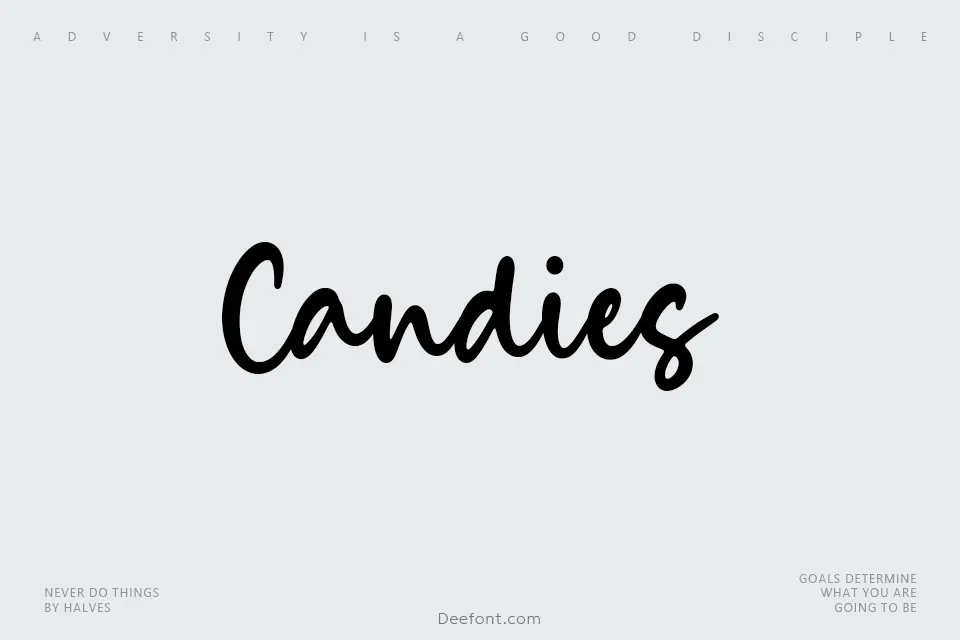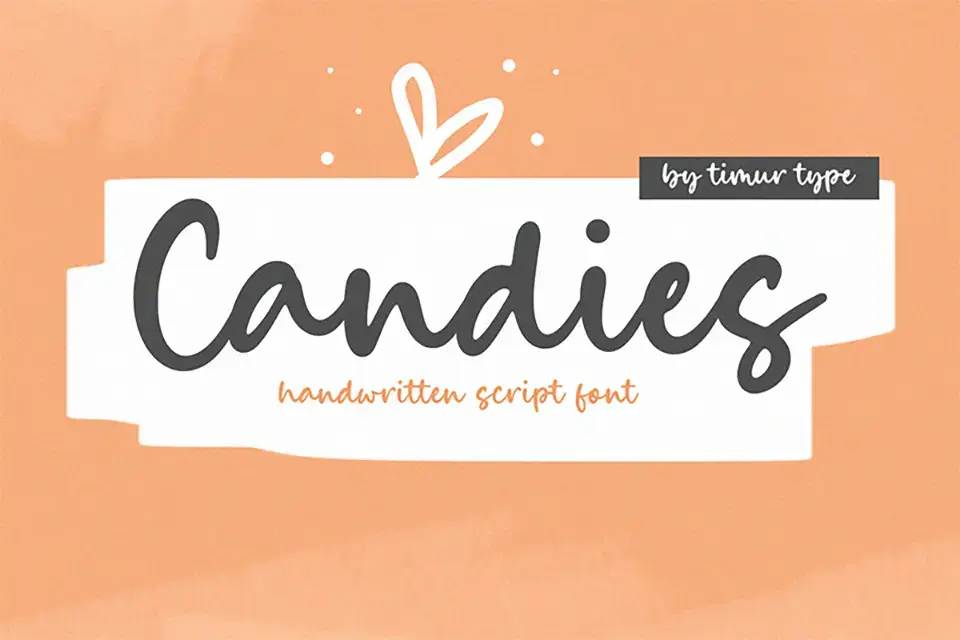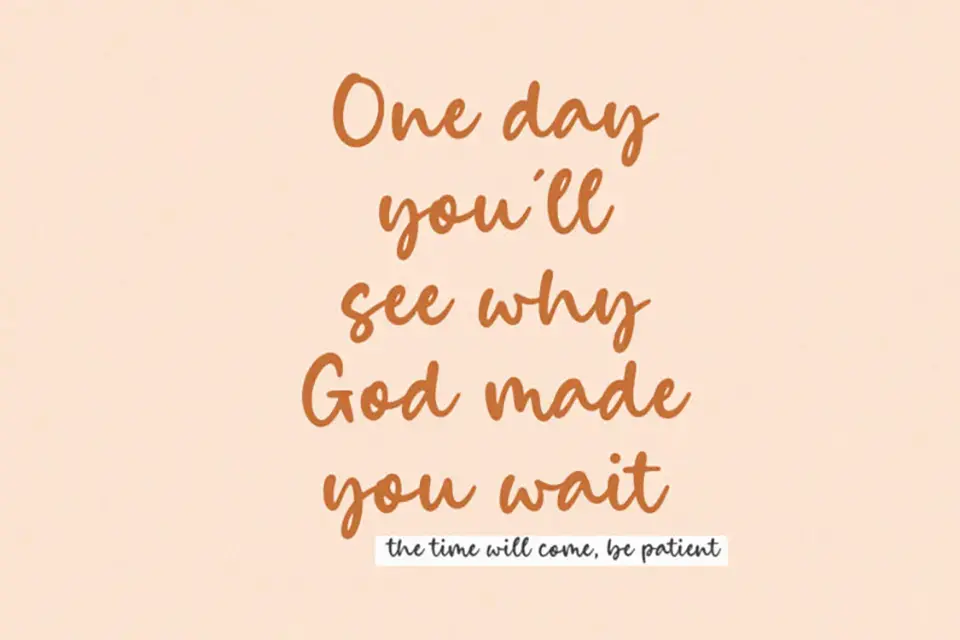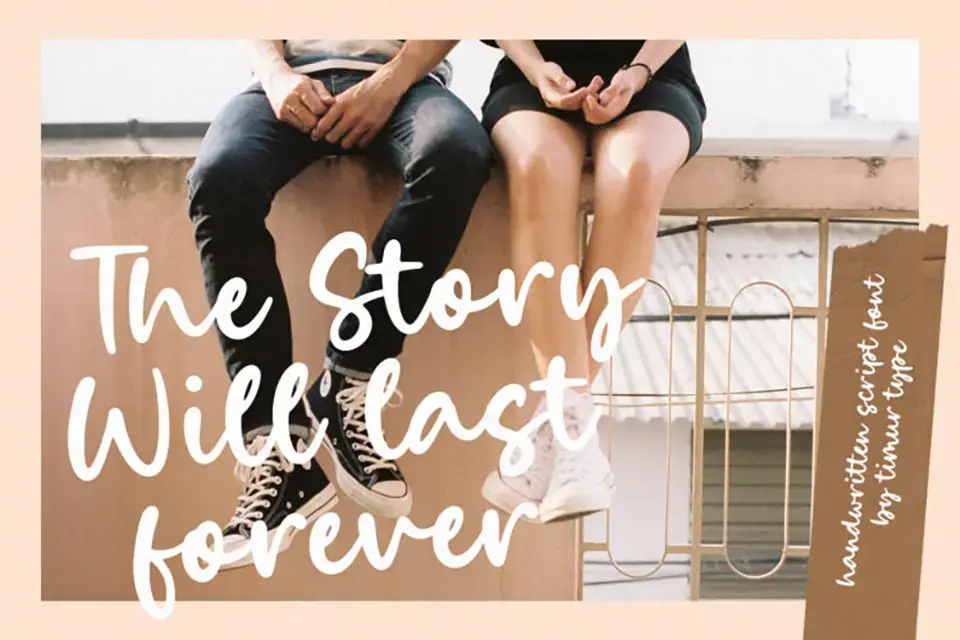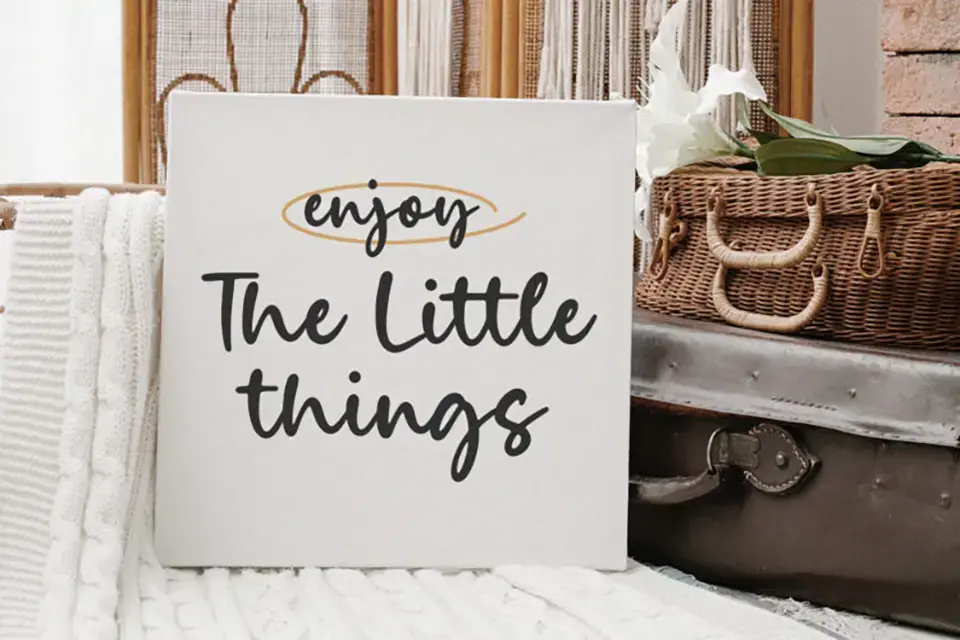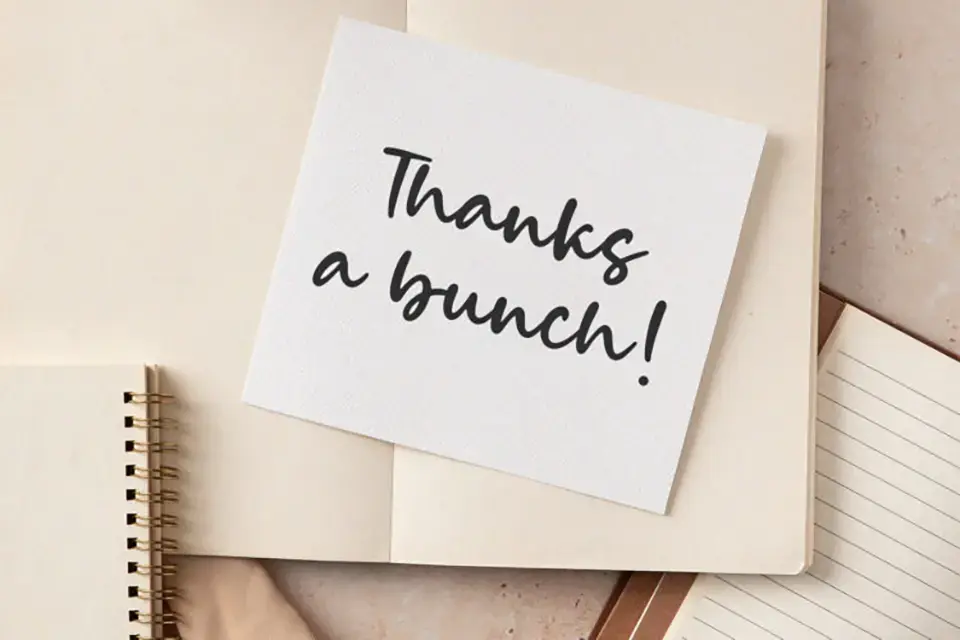
Candies Font
Candies is a delightfully casual handwritten script font designed with flowing curves and organic letterforms that evoke spontaneous hand-drawn artistry. Its semi-bold weight and consistent structure deliver warmth without sacrificing legibility, making it an excellent choice for projects requiring intimate character and personality. Perfect for wedding invitations, greeting cards, social media graphics, packaging designs, posters, and any creative venture seeking a personal, approachable vibe that stands out from corporate typefaces while maintaining professional sophistication.